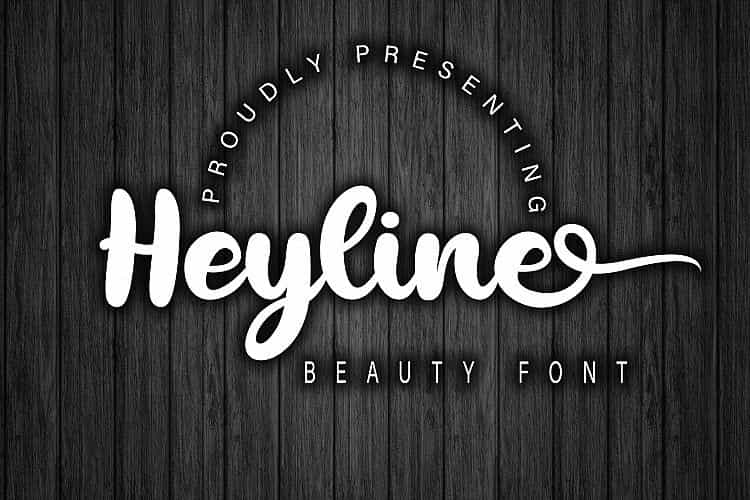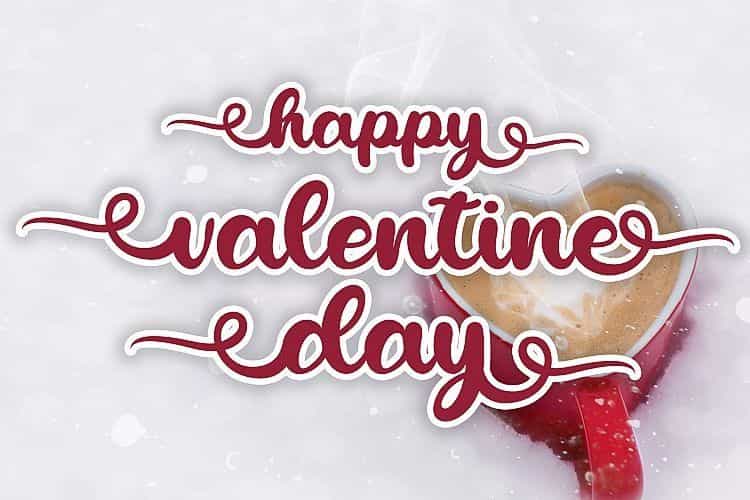
Discover Heyline Bold Script Font, part of the Commercial Brush Calligraphy collection—a versatile and unique font perfect for adding a personal touch to your projects. Download it for free and enjoy crafting designs with style, from invitations to social media posts. This font is available exclusively for personal use, giving you the freedom to create without limits. Unlock your creativity with Heyline Bold Script Font today!
SkiillerStudio in 2020 has developed a new bold handwritten typeface which is presented here. It is known as Heyline Font. It is a hand lettered script font. It is to be added to your font collection. Kismet Script is the perfect mixture of a little bubbly and a bit of chaos.